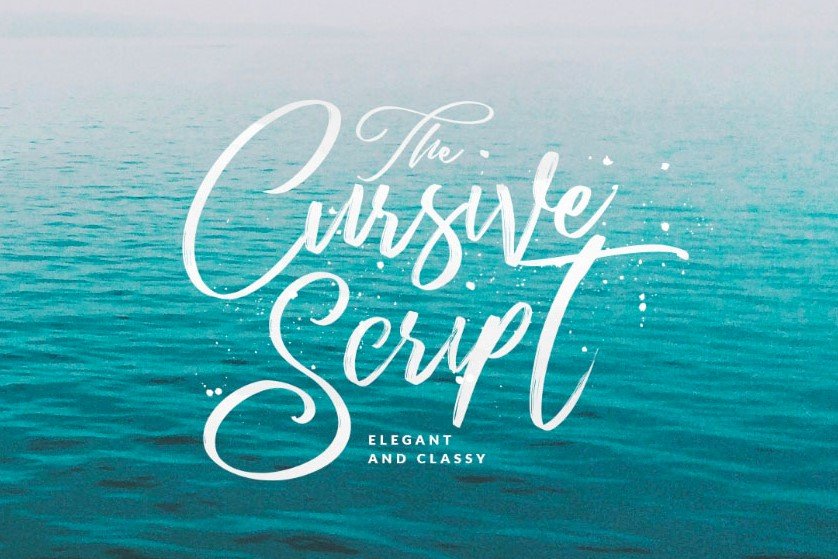
Scripted typeface loved by many graphic creators because of its handy strokes and elegant designs. So, if you want to puts some attractiveness in your designs then we are sharing here the most beautiful and distinct designs. It is Cursive Script Font that is such an outstanding typeface.
The font has bouncy characters and perfect brush strokes that you can utilize with the combination of ar julian font for lots of graphic purposes. The font has handy character strokes that will make any kind of awesome and beautiful designs for free.
All the ligatures, alternates, and swashes of this font combine together in the project and provide you the perfect beautiful and magnificent typeface with cool layouts and features.